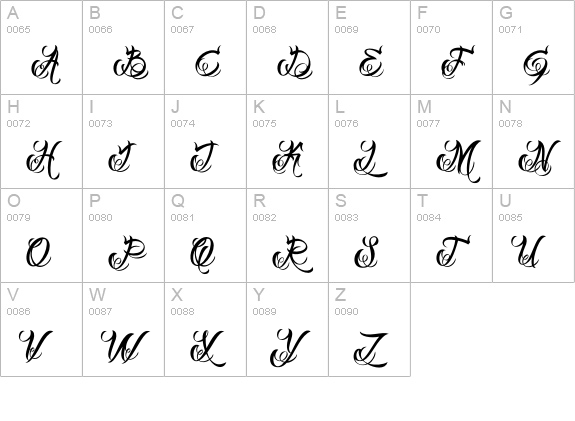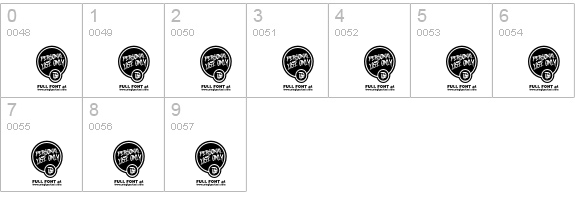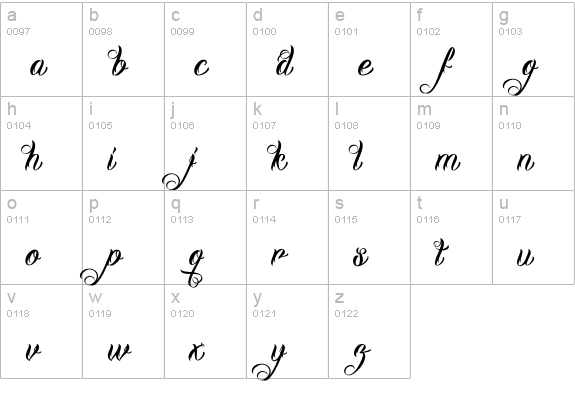
DHF Milestone Script Demo Font Details
Introducing DHF Milestone Script Demo, a beautifully crafted font that combines elegance and versatility. With its delicate curves and graceful strokes, this font is perfect for adding a touch of sophistication to any project. Whether you're designing a wedding invitation, creating a logo, or simply adding some flair to your social media posts, DHF Milestone Script Demo is sure to impress. What makes this font even more appealing is that it is completely free! Yes, you read that right. DHF Milestone Script Demo is freely available to download at FontsMarket.com. No need to worry about breaking the bank to add a touch of beauty to your designs. Simply head over to FontsMarket.com, locate the DHF Milestone Script Demo font, and with just a few clicks, it will be yours to use and enjoy. Not only is DHF Milestone Script Demo free, but it also offers a wide range of glyphs and ligatures, allowing you to truly personalize your creations. Whether you want to emphasize certain words or create unique letter combinations, this font has got you covered. With its timeless elegance and easy accessibility, DHF Milestone Script Demo is a must-have for any designer or creative individual. So why wait? Download the font today and let your creativity flow with ease. Whether you're a professional designer or a hobbyist, this font will elevate your work to new heights. Don't miss out on this opportunity to add a touch of sophistication and beauty to your designs, all for free. Visit FontsMarket.com now and discover the endless possibilities that DHF Milestone Script Demo has to offer.